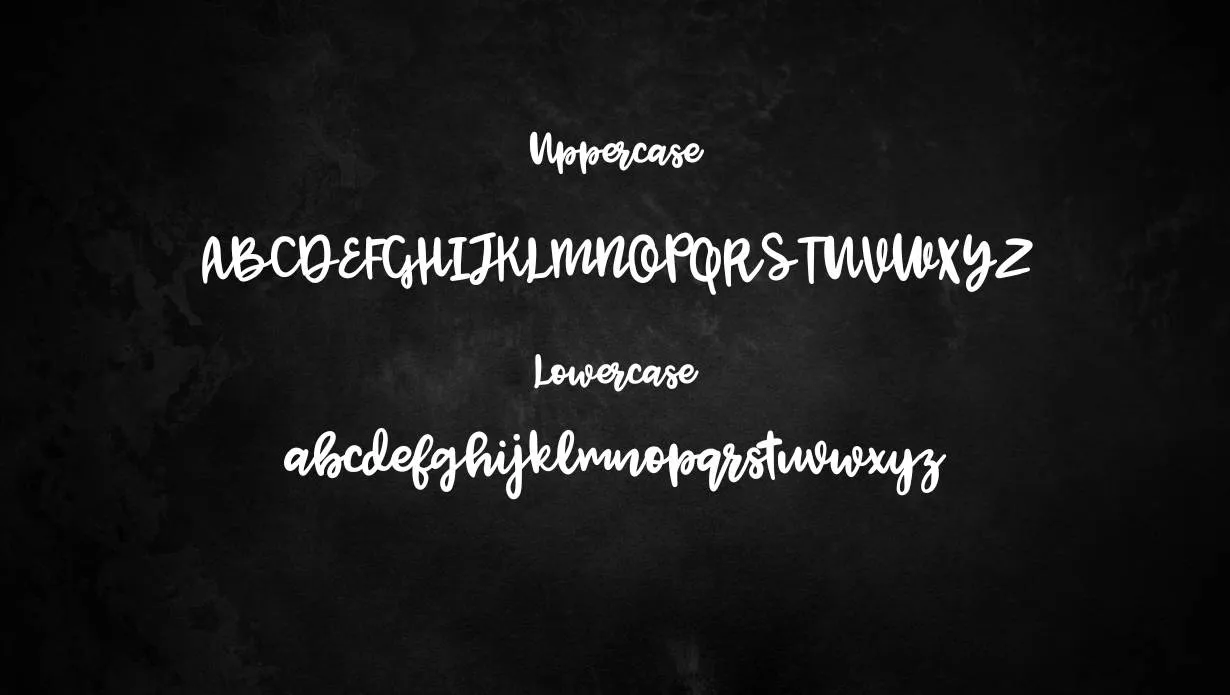
Jenthill font is like a handwritten note from a dear friend—personal, warm, and full of character. When you use it, your words become like a friendly conversation, inviting and approachable.Â
| Name | Jenthill Font |
| Designer | Katsia Jazwinska |
It’s perfect for creating personal messages, invitations, or anything that needs a touch of warmth. Jenthill’s letters are like handwritten embraces, adding a personal and heartfelt touch to your text.